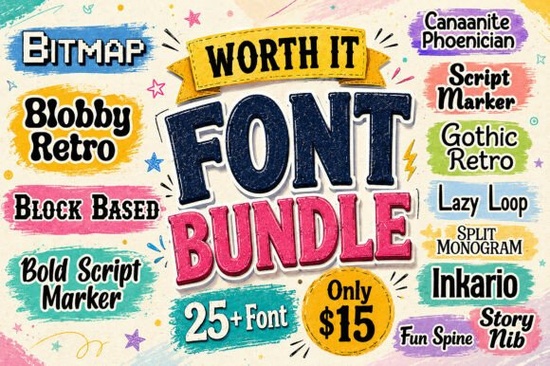
Designers, crafters, and small business owners often look for fonts that can add a unique touch to their projects. The Worth It Font is a versatile choice that brings creativity and personality to any design. Whether you're working on branding, social media graphics, or print-on-demand items, this font bundle offers something for every style and purpose.
The Worth It Font Bundle includes a variety of typefaces, from retro and gothic to script and monogram styles. These fonts are perfect for creating eye-catching visuals that stand out. They’re ideal for everything from packaging and logos to posters and merchandise. With a mix of bold, playful, and elegant options, you’ll find the right font for your creative needs.
What Makes the Worth It Font Unique?
The Worth It Font stands out because it combines different styles into one cohesive collection. This means you don’t have to search for multiple fonts to achieve a professional look. The bundle includes retro-inspired fonts that bring a nostalgic feel, as well as modern decorative options that add a fresh twist. Whether you're going for a vintage vibe or a contemporary edge, these fonts can help you achieve it.
For those who enjoy handcrafted designs, the handwritten styles in the bundle offer a personal touch. The bold western-inspired lettering adds a strong, confident presence, while the elegant monograms provide a refined option for more sophisticated projects. Each font is designed with both personal and commercial use in mind, making it a valuable addition to any designer’s toolkit.
How to Use the Worth It Font in Your Projects
One of the best things about the Worth It Font is its versatility. You can use it for a wide range of applications, including social media posts, marketing materials, and product packaging. For example, if you're creating merchandise for a print-on-demand store, these fonts can help make your designs more appealing and professional.
If you're working on branding, the variety of styles in the bundle allows you to create a cohesive look across different platforms. For instance, using a bold font for headlines and a script font for logos can give your brand a dynamic and stylish appearance. The fonts are also great for creating eye-catching posters or promotional materials that grab attention.
Whether you're a designer, crafter, or small business owner, the Worth It Font Bundle provides a range of options to suit different creative needs. Its mix of styles ensures that you can find the perfect font for any project. By incorporating these fonts into your work, you can elevate the visual appeal of your designs without the need for multiple font purchases.
Before finalizing your choice, consider the specific needs of your project. Do you need a bold font for headings, or a script font for a more elegant look? Testing different fonts in your designs can help you determine which ones work best for your goals. With the right font, your designs can make a stronger impression and better communicate your message.
As you explore the possibilities with the Worth It Font, remember to experiment with different combinations and layouts. This will help you discover new ways to use the fonts and improve the overall quality of your work. Whether you're creating something for personal use or commercial purposes, these fonts can be a valuable resource in your design process.
Take a moment to review the different styles in the bundle and think about how they might fit into your current or future projects. You may find that certain fonts become favorites for specific tasks, while others are used more occasionally. By understanding the strengths of each font, you can make more informed decisions and create more impactful designs.